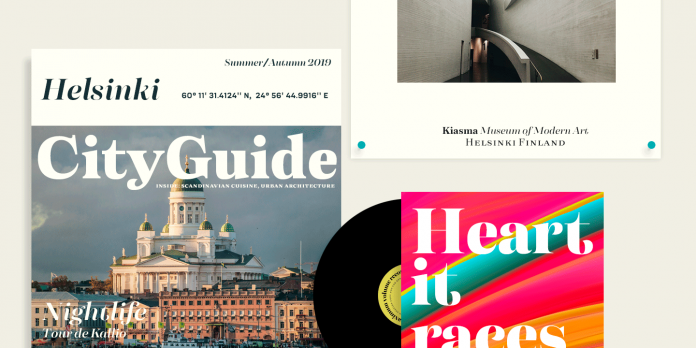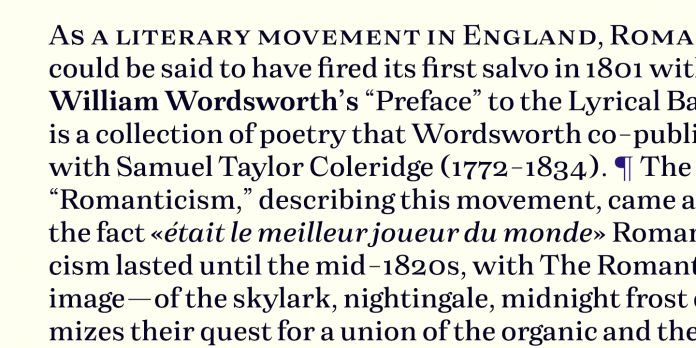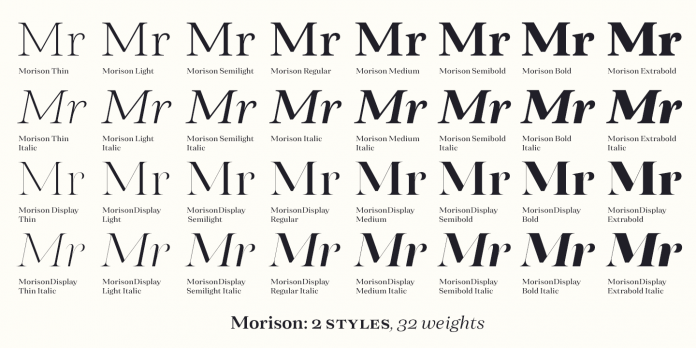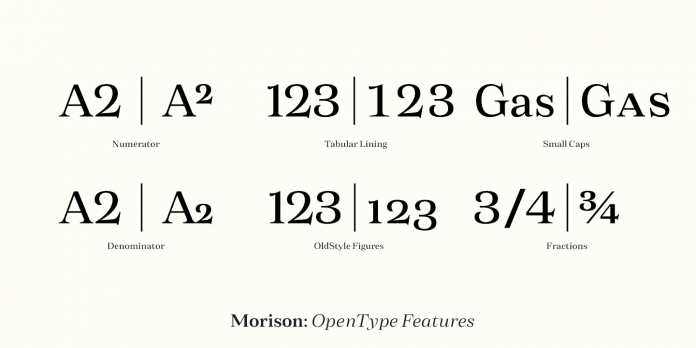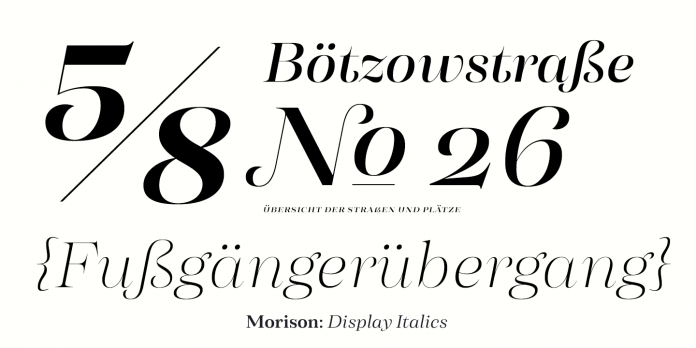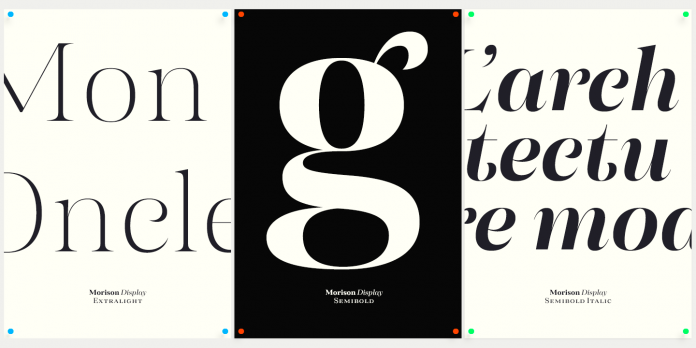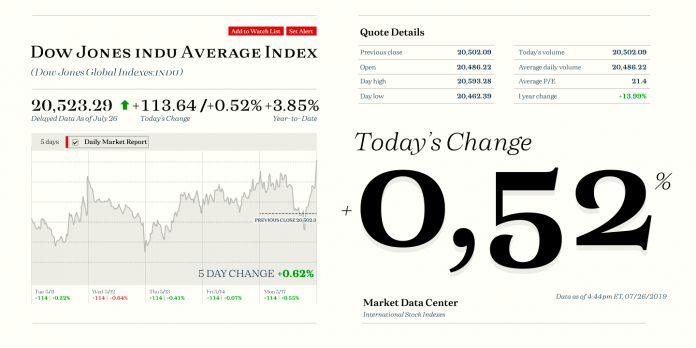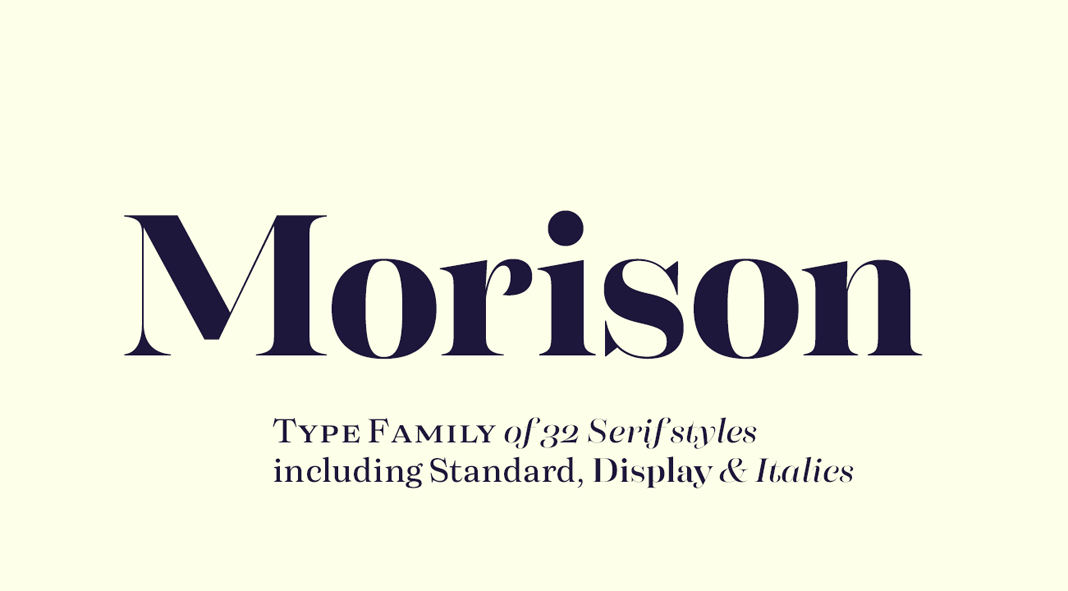
Morison, a classic serif font family of 32 styles including standard, display, and true Italics.
The elegant Morison font family was designed by Erik Bertell, Emil Bertell, and Teo Tuominen in 2019 for foundry Fenotype. The three type designers wanted to create a classic serif family with a good dose of personality and character. Consisting of separate stylistic ranges for display and text use, Morison can stand out in headlines, while acting decent and easy to read in long texts. Both ranges include eight weights plus matching true Italics for each weight.
The Morison font family was made to fulfill a great variety of needs. Its display styles offer an elegant, sophisticated look without compromising on legibility. Morison’s text styles can be considered true workhorses. No matter the text length and size, these fonts perform very well in every situation.
The Morison font family is also equipped with a bunch of useful Open Type features including small capitals and multiple numeral styles. These are just a few advantages of this great family. Below you can see a little more.